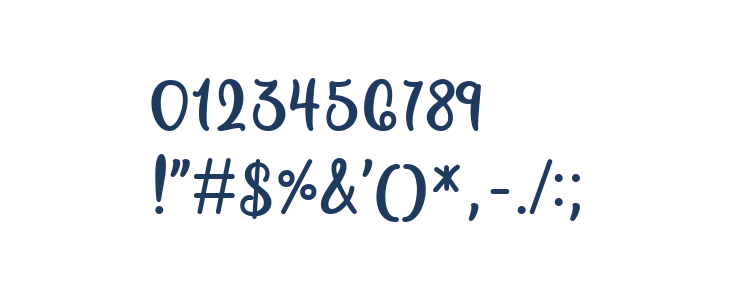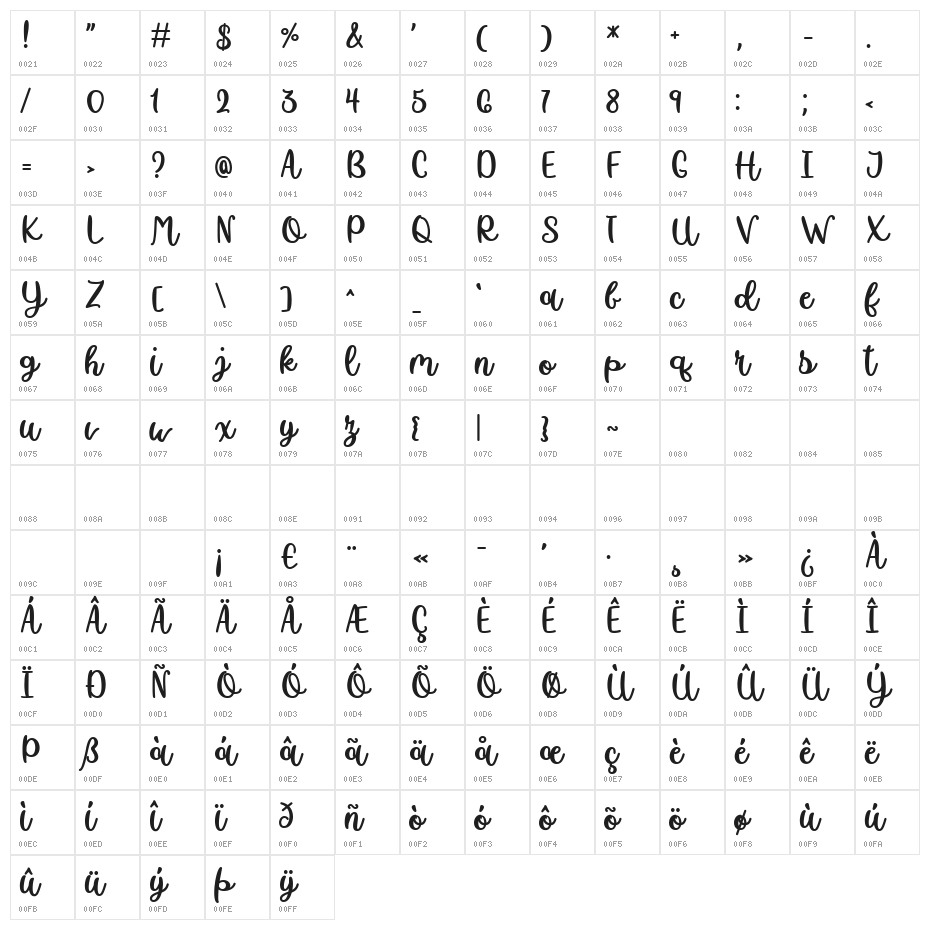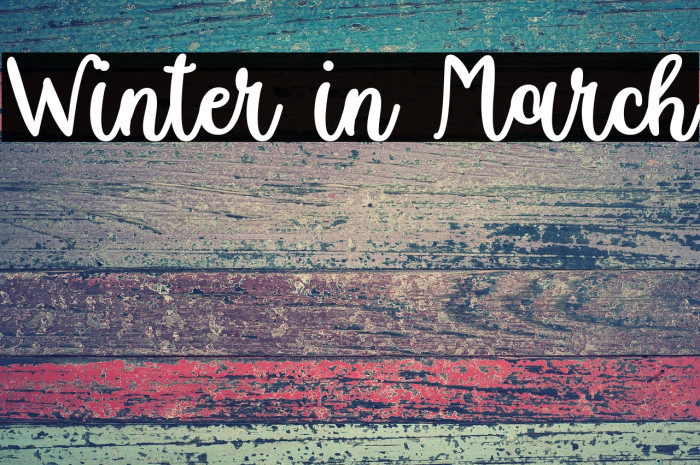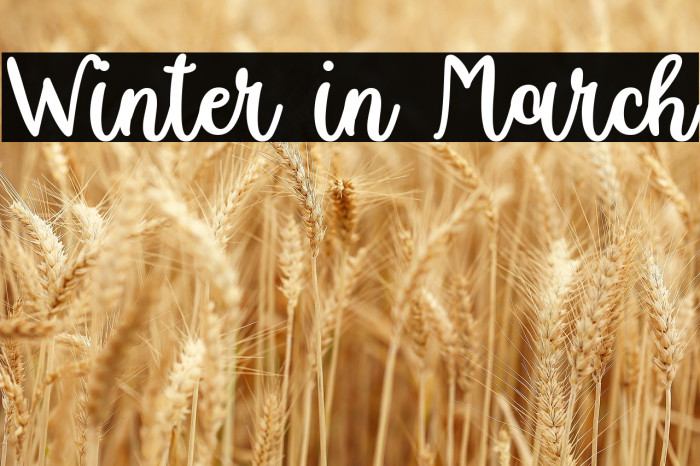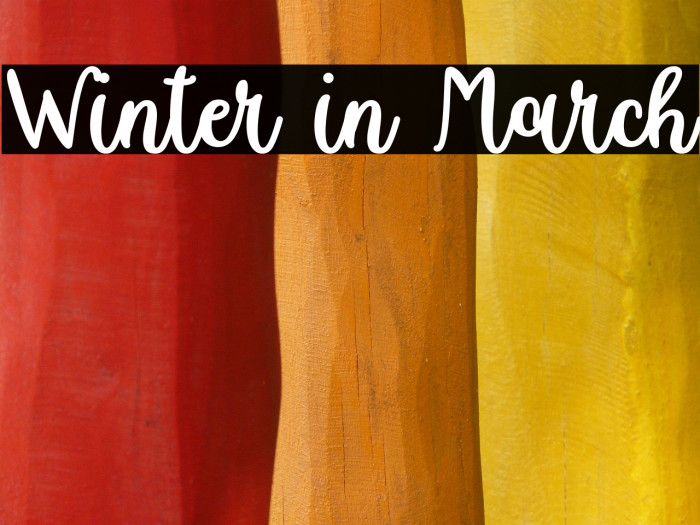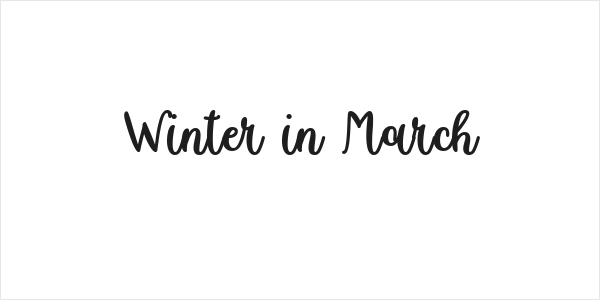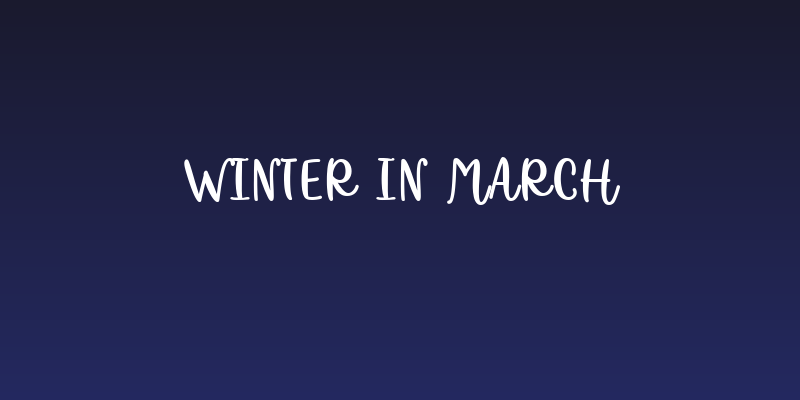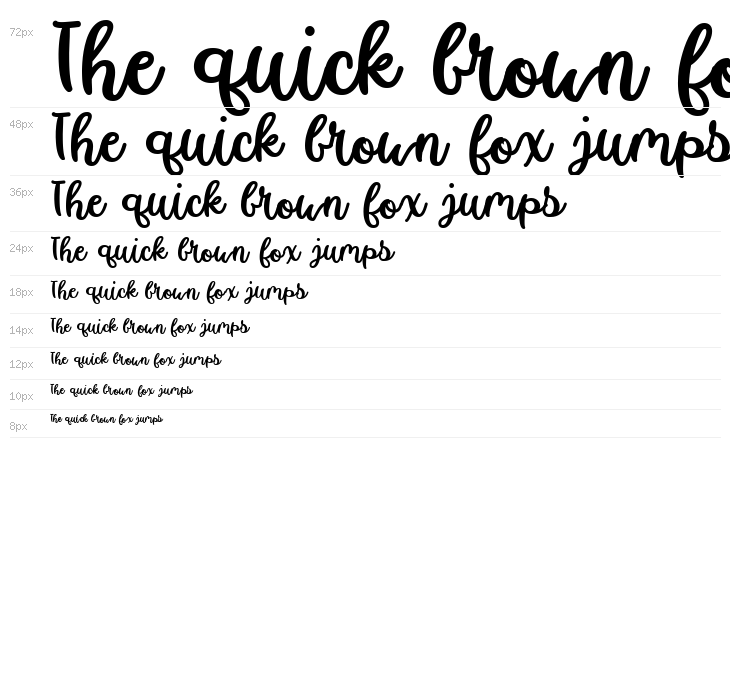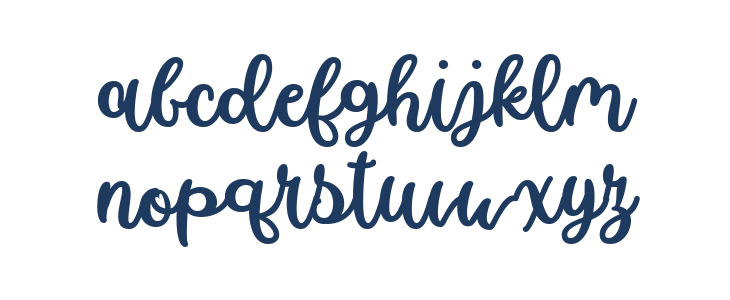
Winter in March Font
Winter in March Description
This font features a playful and casual handwritten style, characterized by its smooth, flowing curves and slightly irregular letterforms. The uppercase letters are bold and rounded, while the lowercase letters exhibit a charming, whimsical quality with some letters connecting in a cursive manner. The numbers maintain the same playful aesthetic, ensuring consistency across all characters. Special characters are creatively integrated, adding to the font's overall appeal. The font's style is both approachable and friendly, making it suitable for a variety of informal and creative projects.